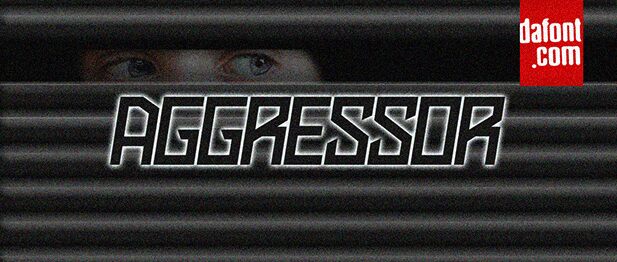
Aggresso Neon Bold
Aggresso Neon Bold font by Vladimir Nikolic is a techno display font inspired by avant-garde and futuristic themes. Its angular and edgy characters have an impactful presence that won’t go unnoticed. Softer at the edges but more serious at the core, this typeface maintains an attractive visual balance of parts which will never become too much for readers.
Aggresso Neon Bold is free and versatile enough to be used in multiple design projects that could have different purposes. This includes posters, advertisements, social media posts, signage design, book covers, brochure covers, and magazine covers. It can also work on gaming graphics, apparel designs such as T-shirts or hoodies, video titles or intros, website headers or footers.